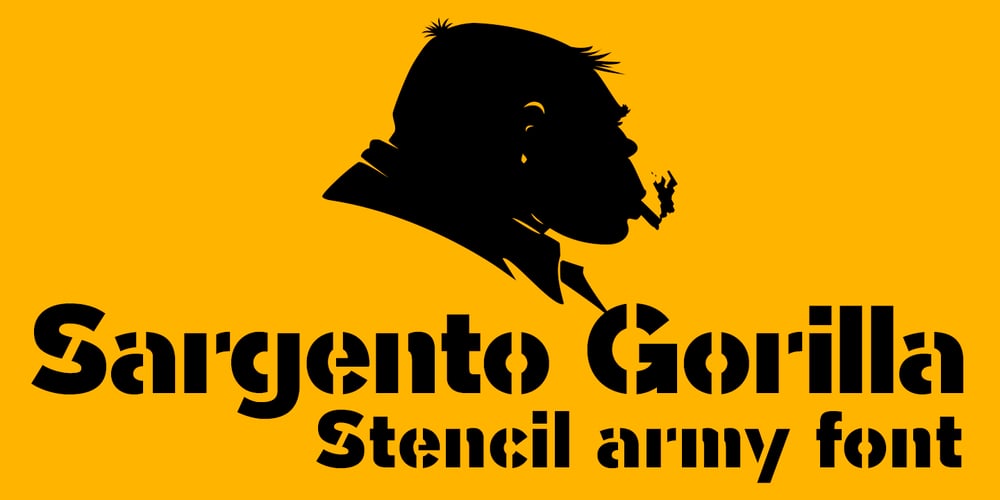
Sargento Gorila Font Family was designed by Fernando Haro and published by deFharo. Sargento Gorila contains 3 styles and family package options. Sargento Gorilla (Regular & Italic) is a sans stencil type military style that includes the Cyrillic alphabet, several monetary symbols including Bitcoin, alternative letters and various ligatures. Created in 2017 and based on my previous typography Tabarra Sans Black. =============== OTF & TTF Regular & Italic Latin Extended-A + Cyrillic =============== Funciones OpenType: Stacked Fractions, Historical Forms, Kerning, Localized Forms, Capital Spacing, Standard Ligatures, All Alternates, Additional languages, Fractions. =============== Bitcoin symbol: b# (liga) Sergeant symbol: a# (liga) Sargento Gorila: SGT (dlig)